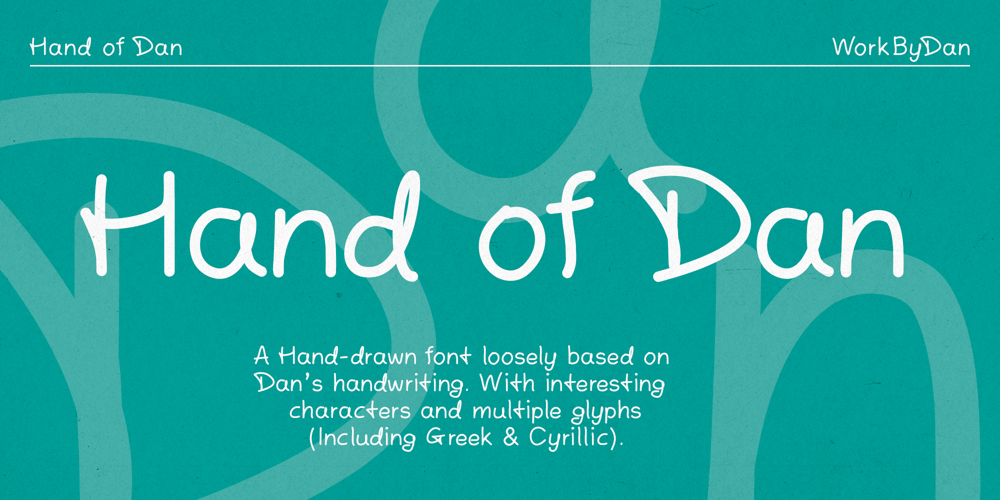
Hand of Dan Font Family was designed by Daniel Thomas and published by Work by Dan. Hand of Dan contains 1 styles and family package options. A Hand-drawn font loosely based on Dan’s handwriting. Full of personal charm and interesting upper & lowercase characters, numerals and a large range of glyphs(Including Greek & Cyrillic).